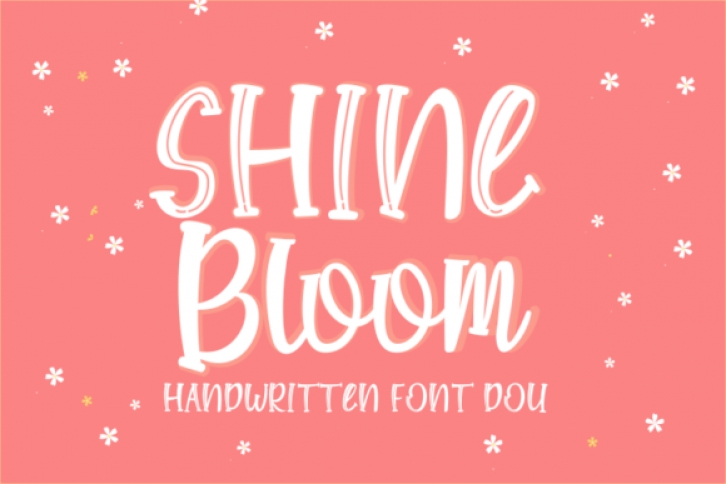
Shine Bloom is a sweet and tall display font. Its friendly feel makes this font incredibly versatile, fitting a wide range of contexts. Add it to your creative ideas and notice how it makes them stand out!